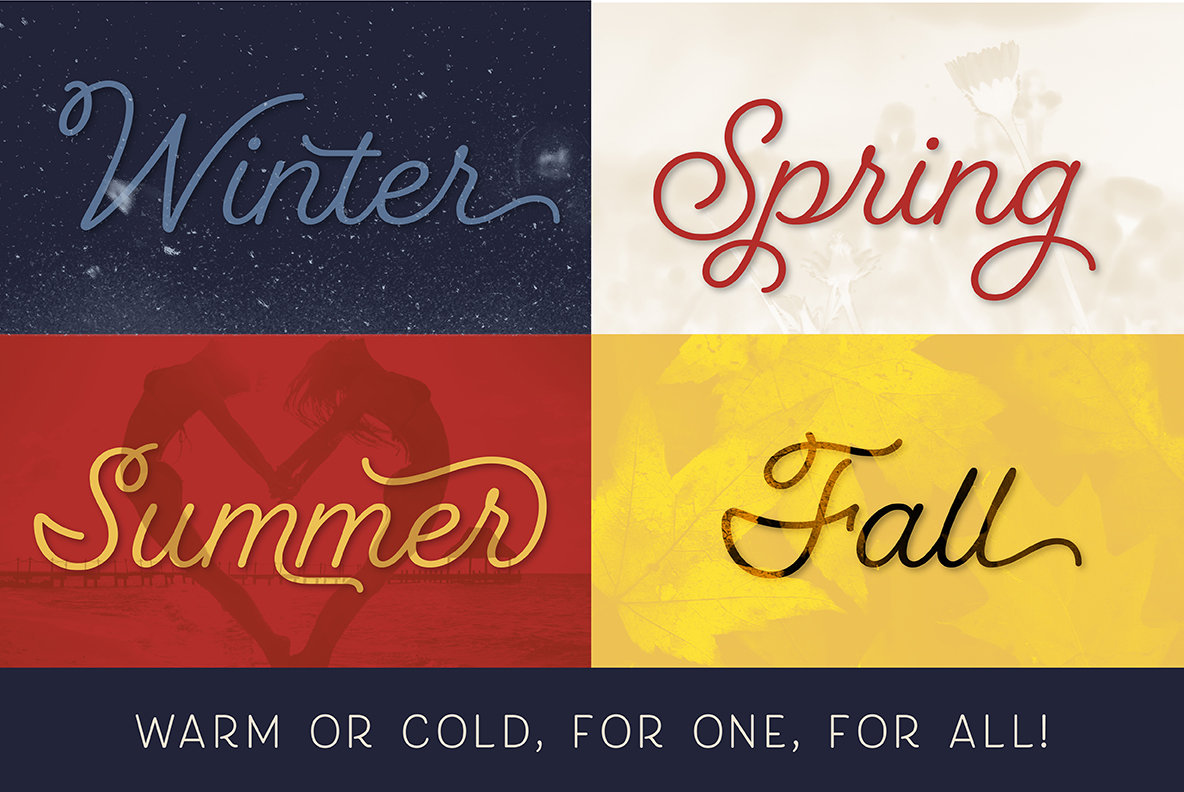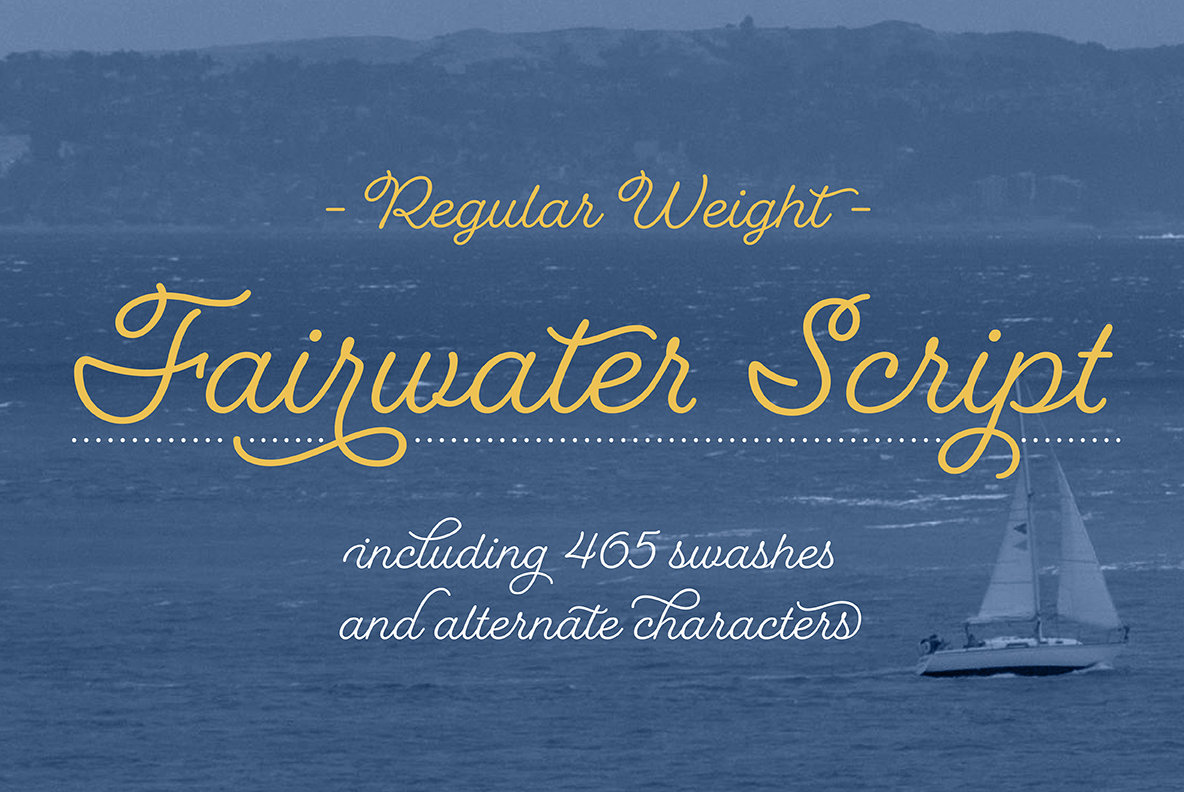
Fairwater Script Font
Fairwater’s aesthetic derives from the cursive handwriting styles popularized in the early to mid 1900s. Friendly, monoline, and casual – available in light, regular and bold weights. As with many of her faces, Laura can’t resist adding a plethora of swashes and alternates to the script version.
• 2,230 Glyphs
• 395 Swashes
• 31 Stylistic Alternates
• Ending forms on all letters
• 34 Beginning and Isolated letters
• Unconnected version (Titling feature)
• Contextual Alternates feature